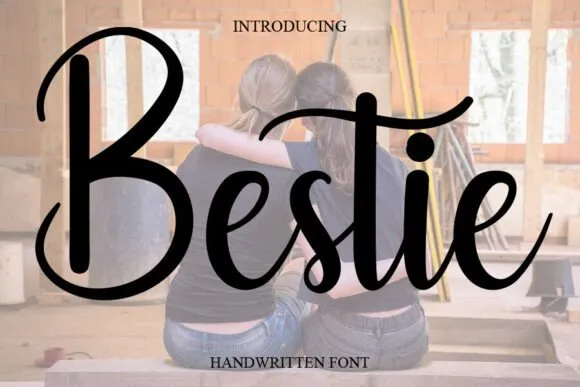
Add a playful, friendly, and creative touch to your designs with Bestie Font. This charming handwritten script font combines a casual appearance with a modern style, making it a great choice for personal and creative design projects.
With its smooth handwritten look, Bestie Font works beautifully for quotes, invitations, social media graphics, logos, greeting cards, digital artwork, and other projects that need a warm and personal touch.
Bestie Font Features
- Cute Handwritten Style – Give your text a natural, casual, and friendly appearance.
- Modern Script Design – Perfect for contemporary and creative projects.
- Versatile Typography – Use it for headlines, quotes, names, branding, and decorative text.
- Creative Project Friendly – Great for both digital designs and printable projects.
Perfect for Creative Designs
Bestie Font is a great choice for:
- Greeting cards
- Invitations
- Social media graphics
- Quotes and typography
- Logo concepts
- Branding projects
- Stickers and labels
- T-shirt designs
- Digital illustrations
- Craft projects
Whether you’re creating a cute quote, personalized invitation, social post, or decorative design, Bestie Font adds a fun handwritten personality to your typography.